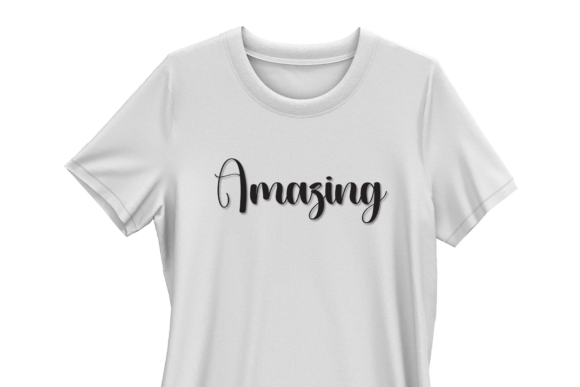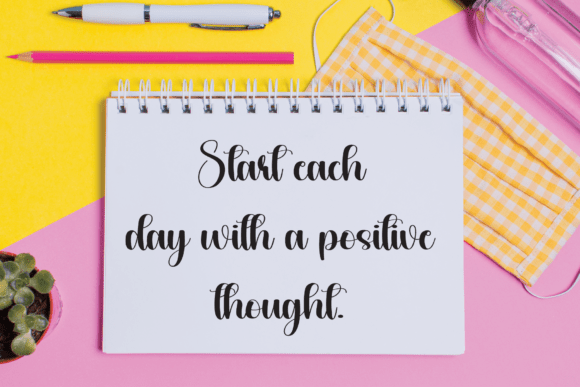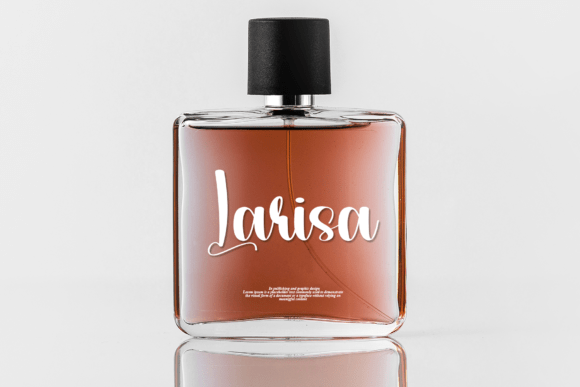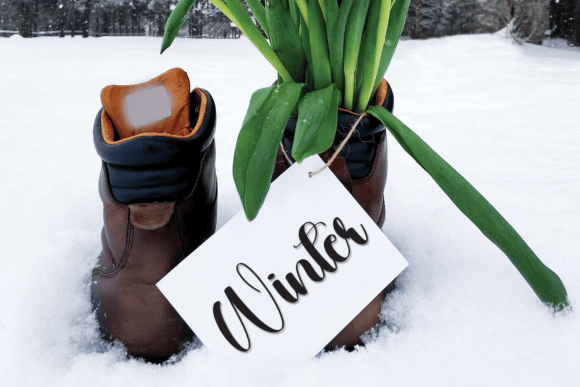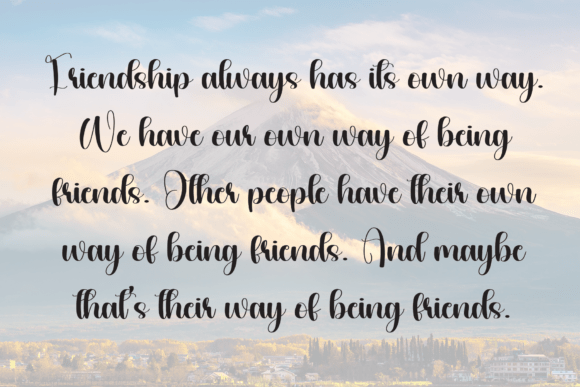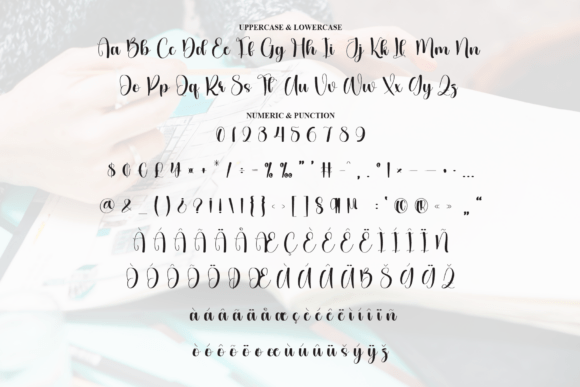
Introduction to Creating Book Font
Creating Book is a stylish script font that exudes elegance and contemporary charm.
Featuring graceful strokes, fluid curves, and carefully crafted letterforms, it captures the beauty of hand-drawn calligraphy with a modern twist Ideal for logos, invitations, packaging, and social media graphics, it adds a refined and sophisticated touch to any design.
Key Features of Creating Book Font